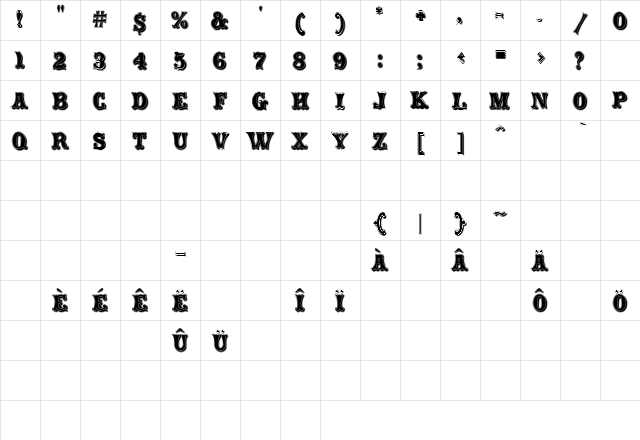
Carnival Rimmed Open Shadow
| Style | Open Shadow |
Design Context for Carnival Rimmed Typeface
Carnival Rimmed brings ornamental detail and strong personality to headlines and identities, where visual impact matters more than quiet functionality.
Font Pairing: Pair with a clean neutral sans-serif for body copy to let Carnival Rimmed's character lead without overwhelming the composition.
Pro Tip: Use Carnival Rimmed exclusively at display sizes — it was designed to be seen, not read at length. Let a neutral companion handle body copy.